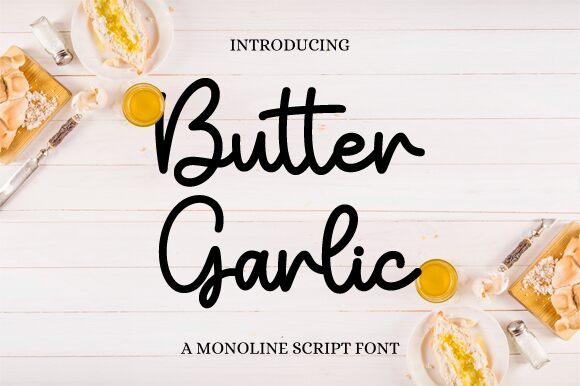
Butter Garlic is a handwritten font that exudes a personal touch with its fluid, cursive letters that seem to dance across the page. Crafted by Nirmala Creative, it carries an organic feel, reminiscent of elegant calligraphy yet with the casual grace of a quick note penned by a friend. The sweeping curves and varying stroke width give it an authentic human touch, making each character brim with personality.
This font's charm lies in its versatility-perfect for branding projects that require a dash of intimacy, invitations that call for sophistication without stiffness, or any creative work where warmth and approachability are key. Butter Garlic is not just a typeface; it's an invitation to connect through design.